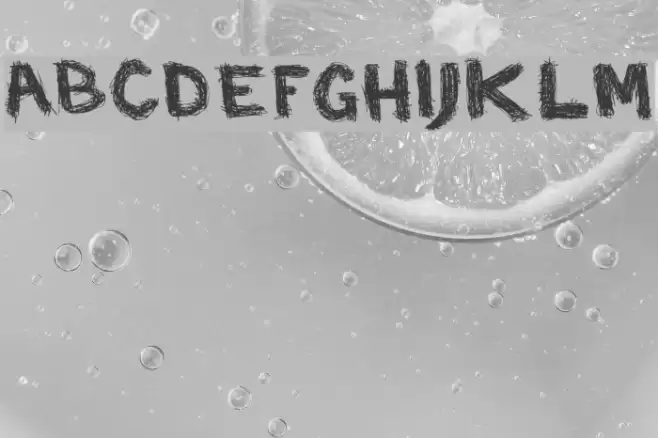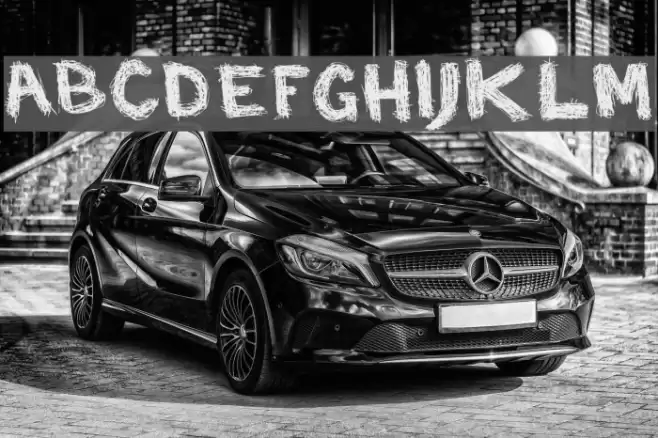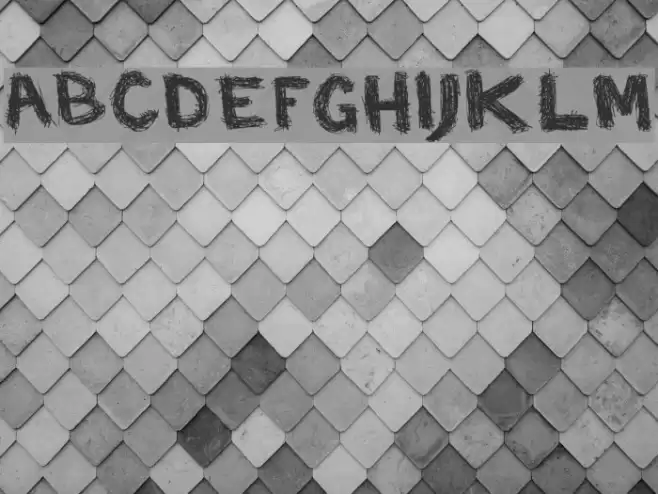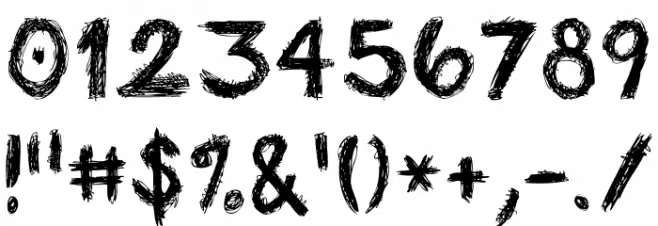
SP Caffeine Regular Font
SP Caffeine Regular Description
This font features a bold, hand-drawn style with a textured, sketch-like appearance. Each character is filled with energetic strokes, giving it a dynamic and lively feel. The uppercase and lowercase letters maintain a consistent style, with irregular edges and a slightly rough texture that adds to its handcrafted look. The numerals and special characters follow the same aesthetic, ensuring a cohesive design throughout. This font is perfect for projects that require a personal touch or a sense of movement and creativity.
A bold, hand-drawn font with a textured, sketch-like appearance from Script fonts.
- Proposed Projects: Ideal for posters, artistic projects, branding, and any design needing a dynamic, handcrafted feel.
- Use Case: Logos, Headlines, Posters